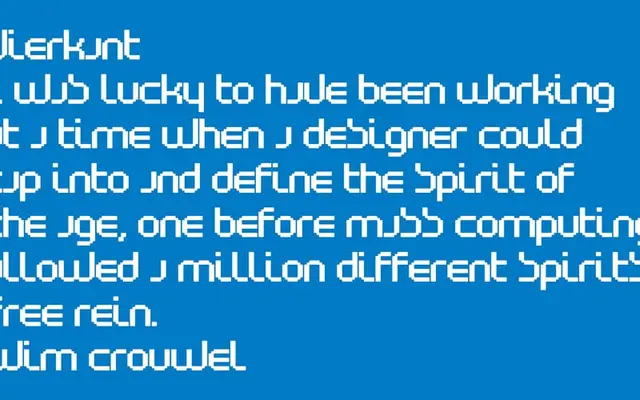
Architype Vierkant
The Foundry Types · Wim Crouwel · 1996
A digital revival of Wim Crouwel's grid-based letterforms first drawn for a 1972 Drupa catalogue, developed by The Foundry in collaboration with Crouwel from 1996.
Constructed from the few letterforms Crouwel sketched for a single spread in the 1972 Drupa catalogue under the theme 'typo vision international', the face reflects the same strict modular logic underpinning his controversial New Alphabet and Fodor typeface. The Foundry developed it digitally as part of a broader Crouwel collection agreed in 1996, grounding each design in his reputation for radical, grid-based work produced for the Van Abbe and Stedelijk museums between 1954 and 1972. Available in a single style, it is primarily a document of experimental typography rather than a workhorse text face.
Derived from Crouwel's radical grid-based letterforms originally created for a 1972 Drupa catalogue, the face sits firmly in experimental/display territory with its rigid modular construction rooted in his 'new alphabet' philosophy.